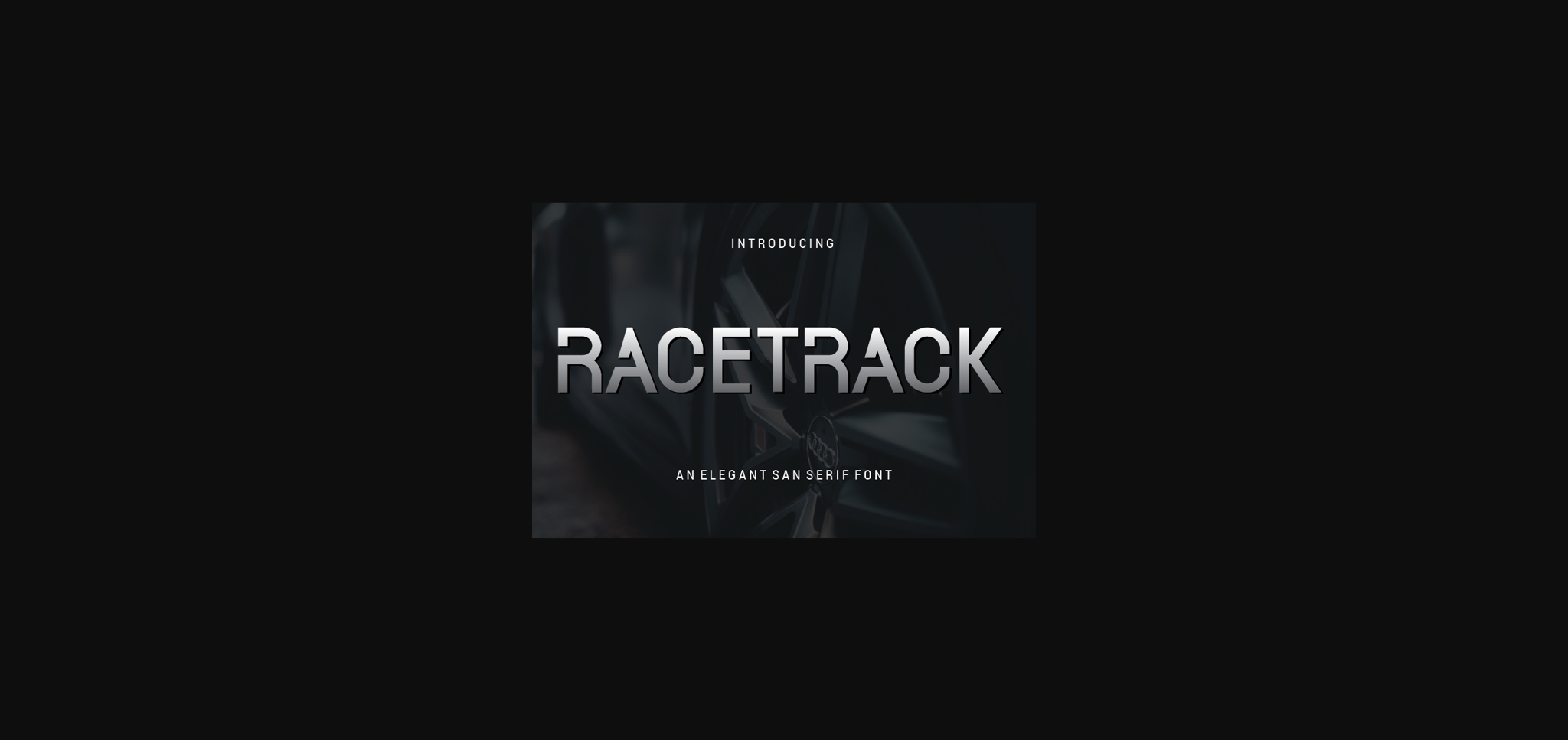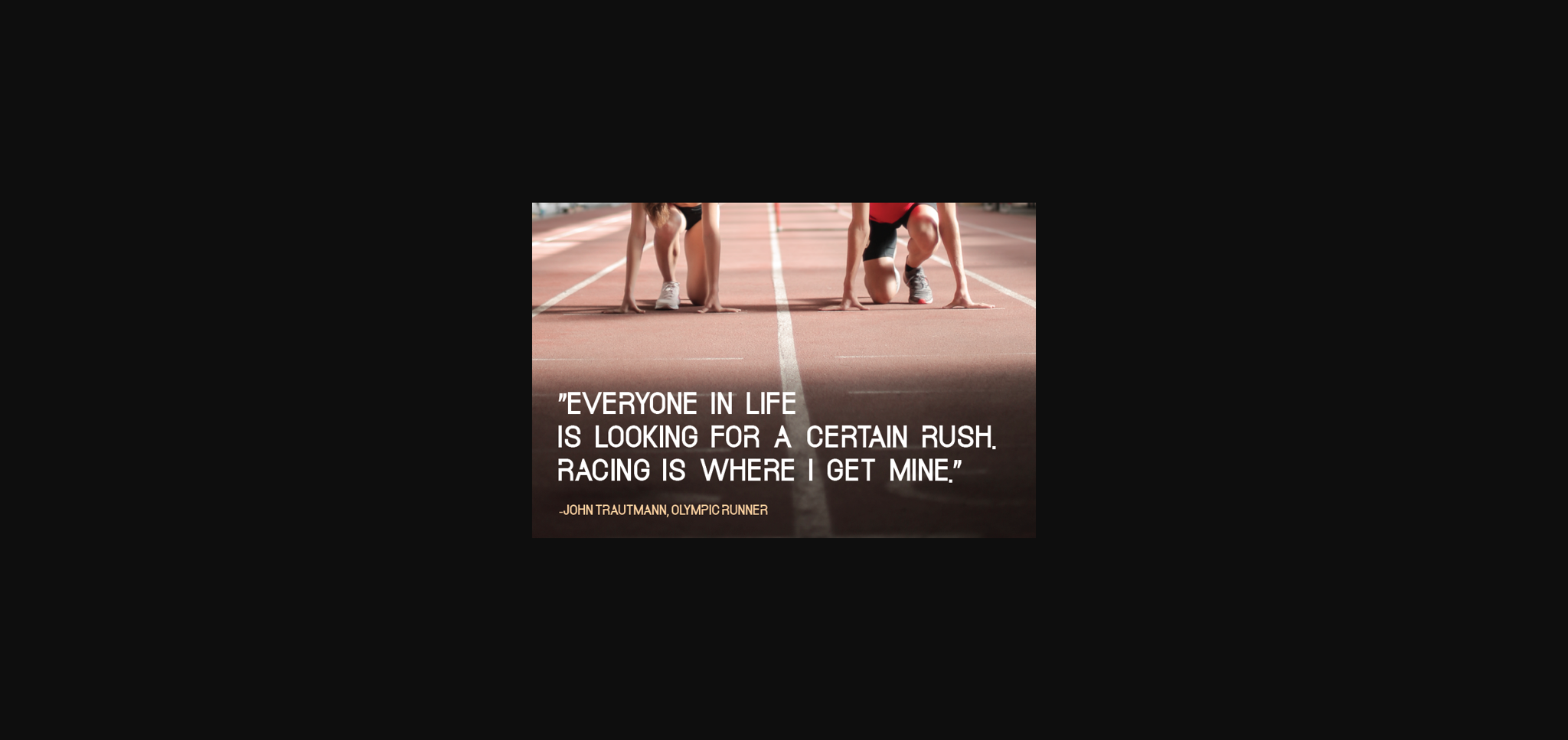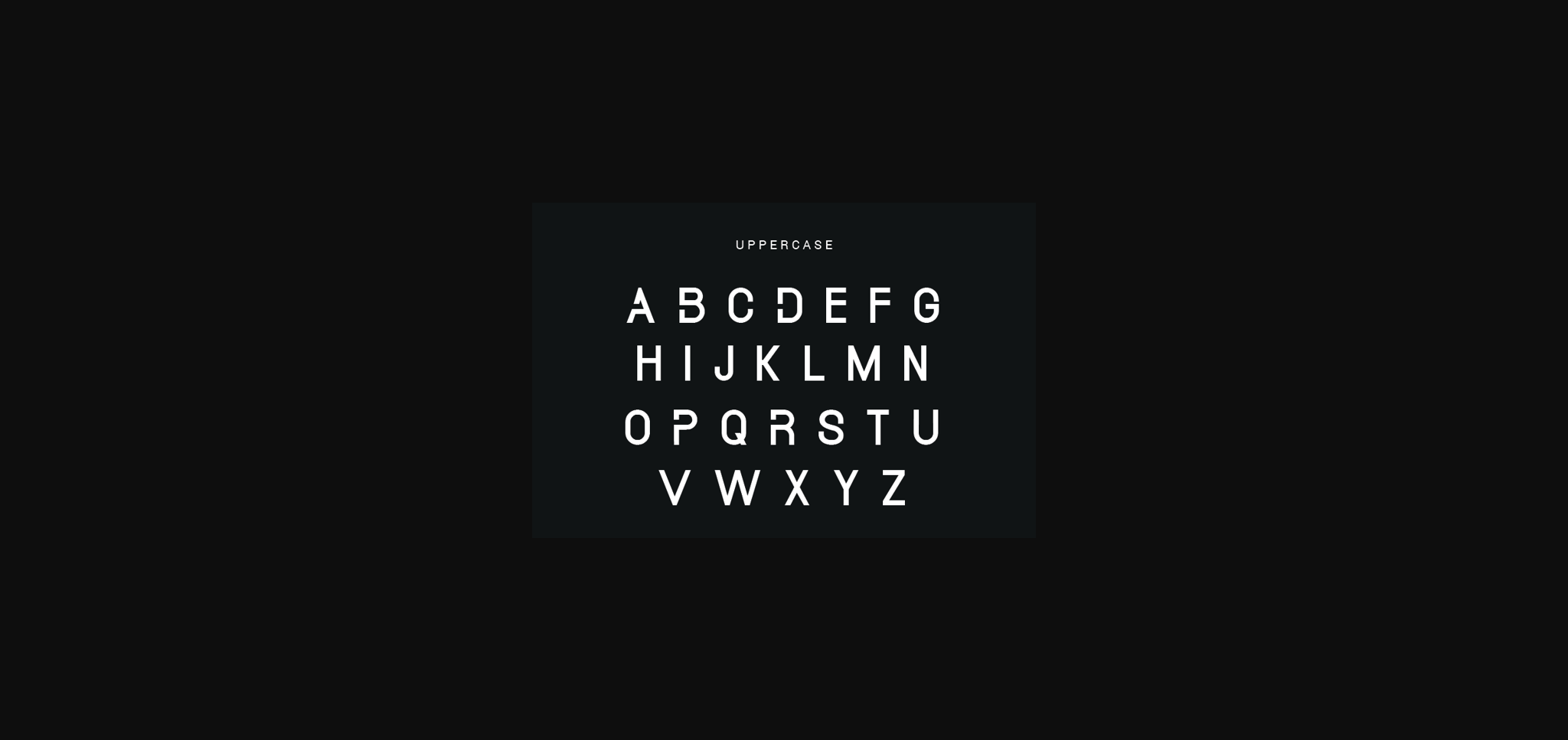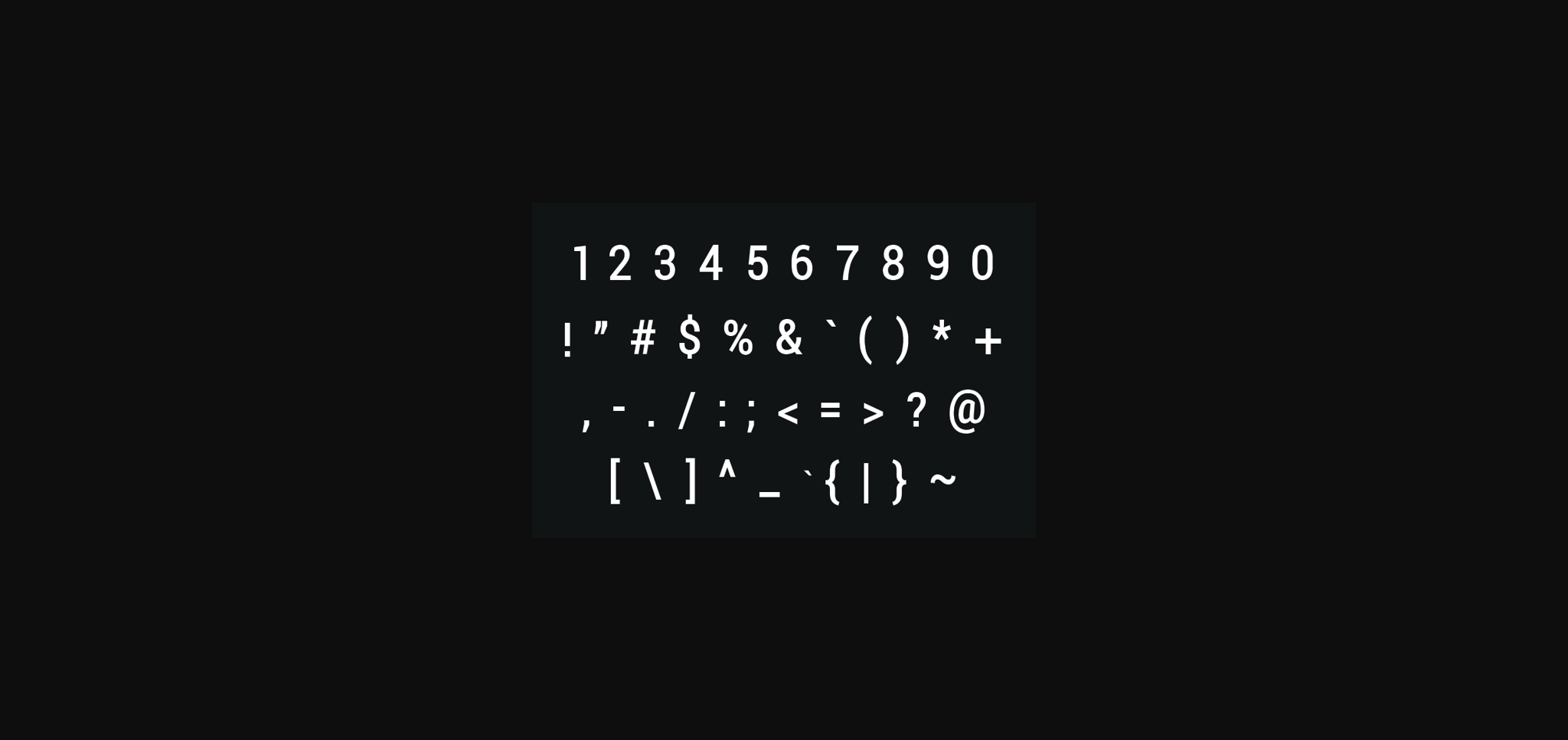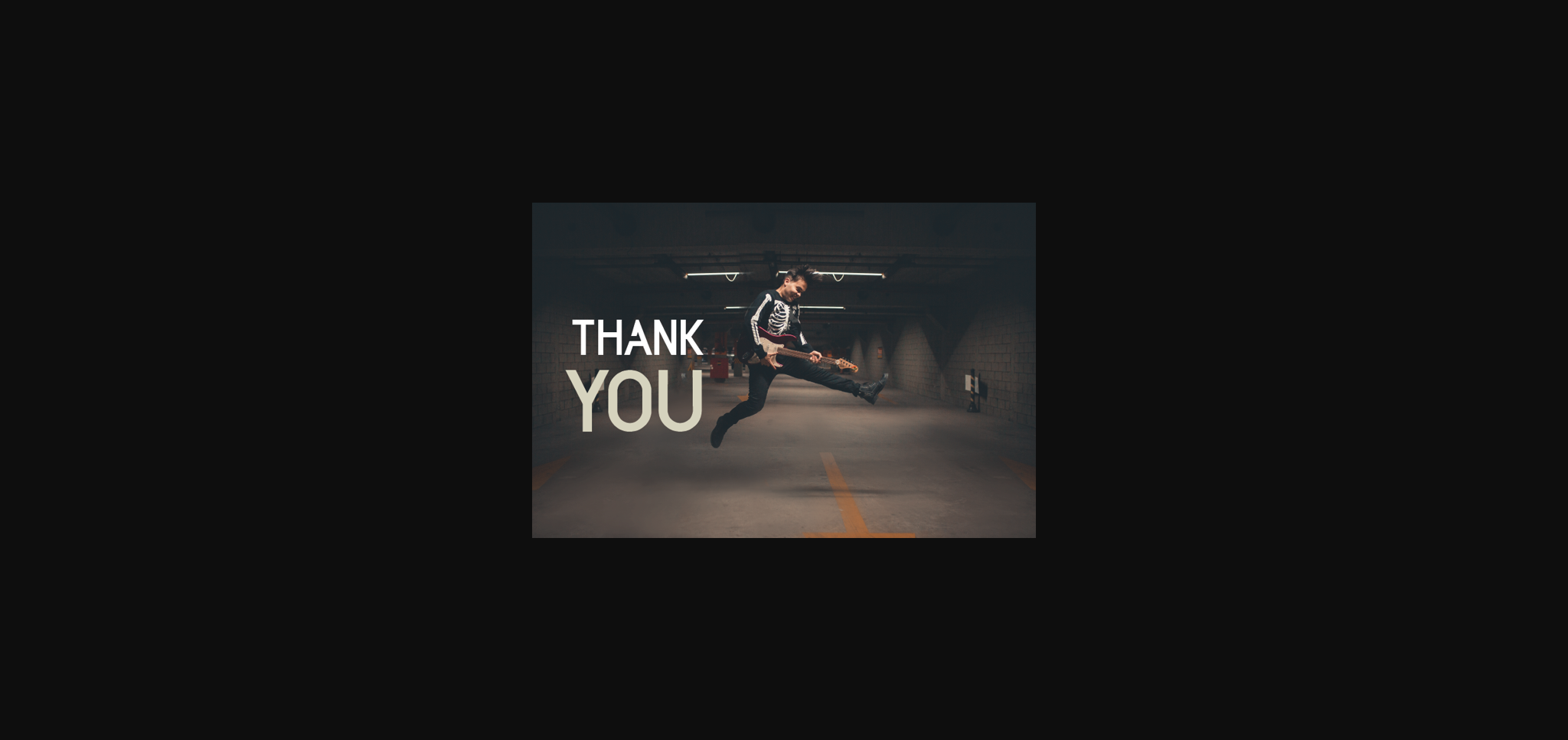
Racetrack is a minimal yet elegant sans serif font. It can easily be matched to an incredibly large set of projects, so add it to your creative ideas and notice how it makes them stand out!